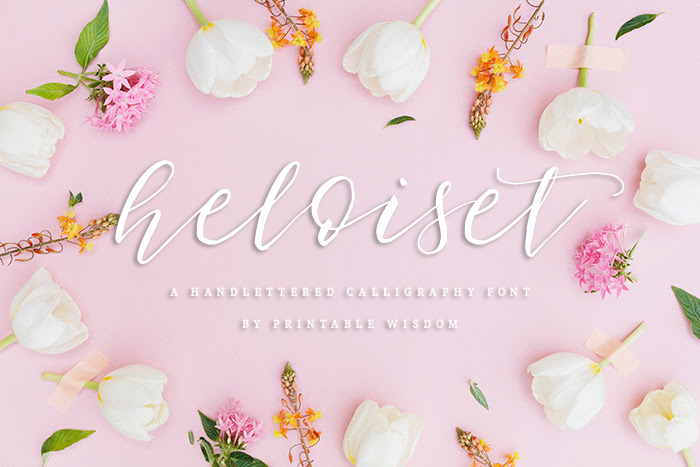
Heloiset Calligraphy Font
Heloiset was created from the hand lettered writing of Ashley at Printable Wisdom Co. Signature letterforms flow across the page with a bouncing baseline perfect for invitations, scrapbooking, and adding that special handcrafted touch to a project.
Check out that fancy 'o' and 't' - this font is full of unexpected pops of personality!